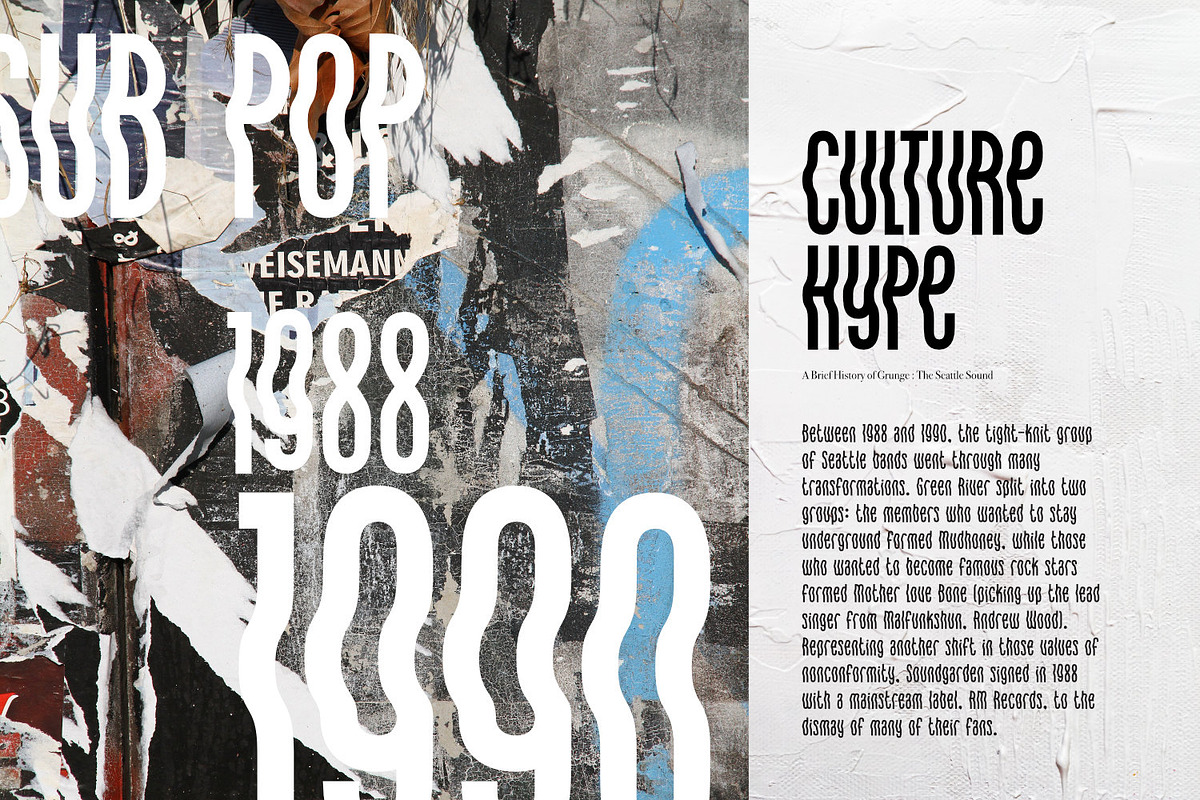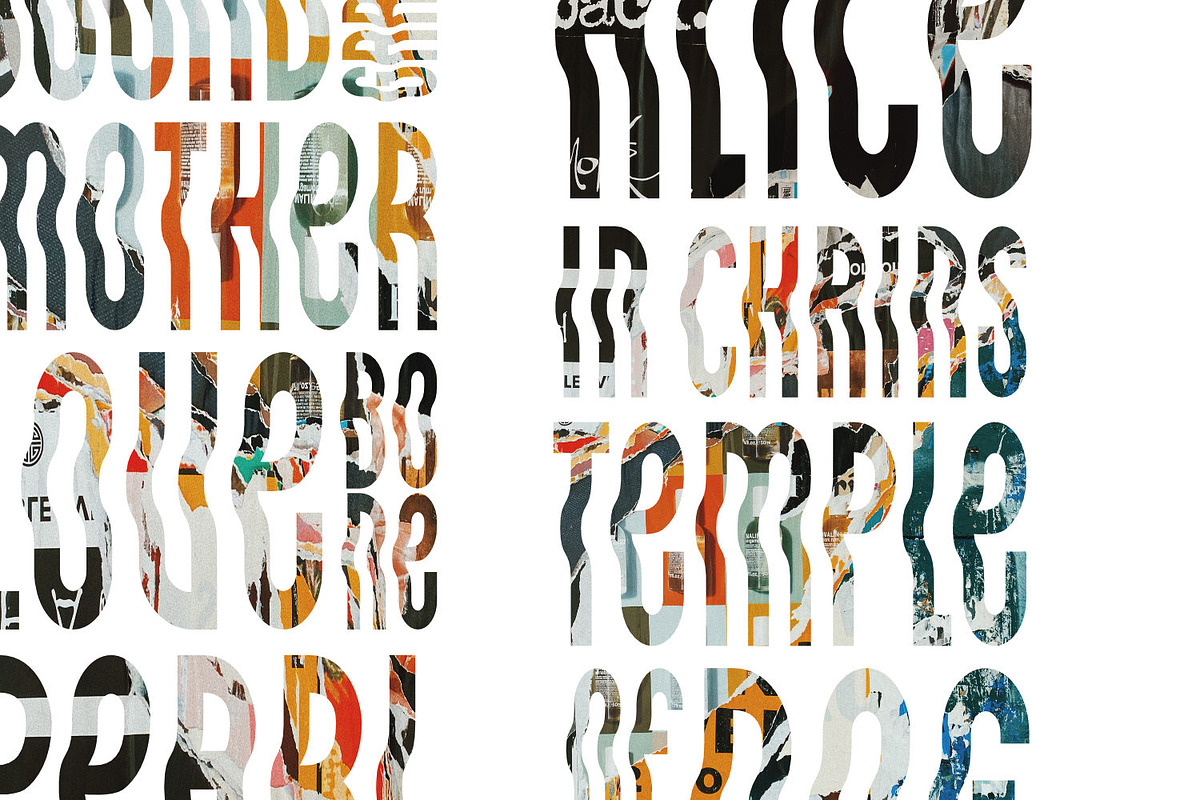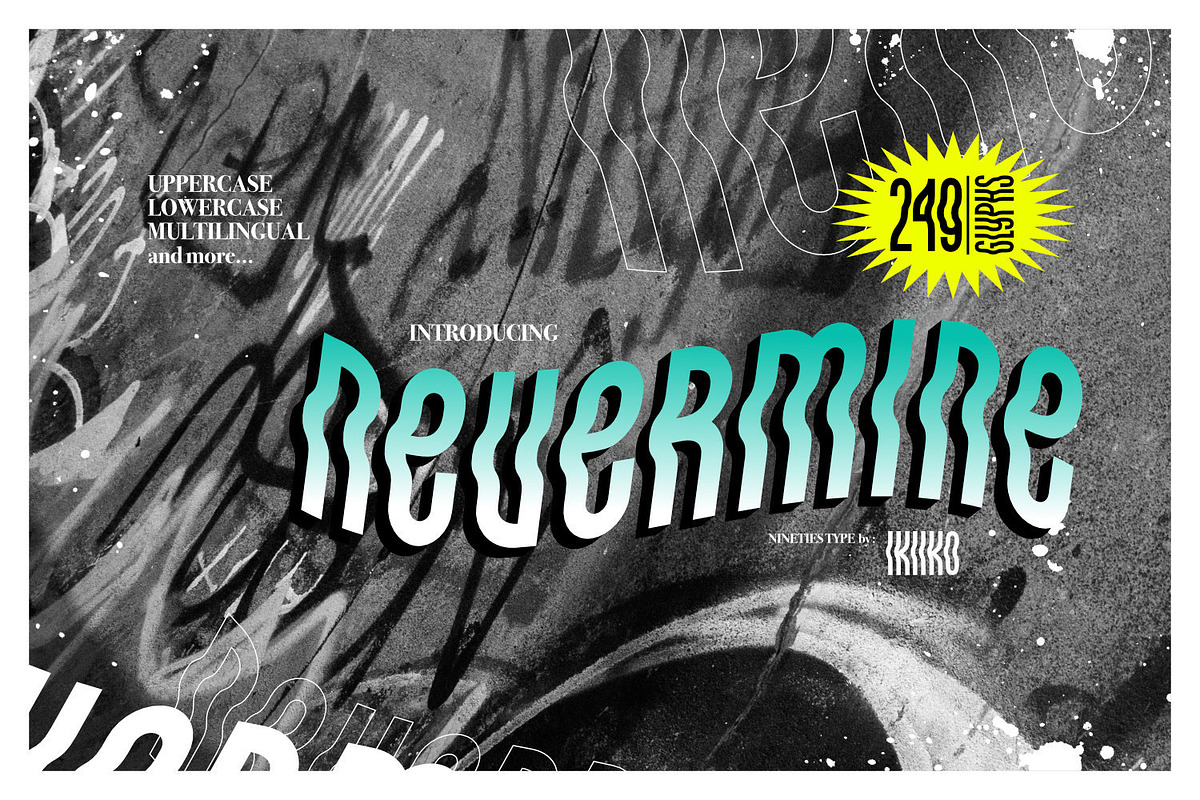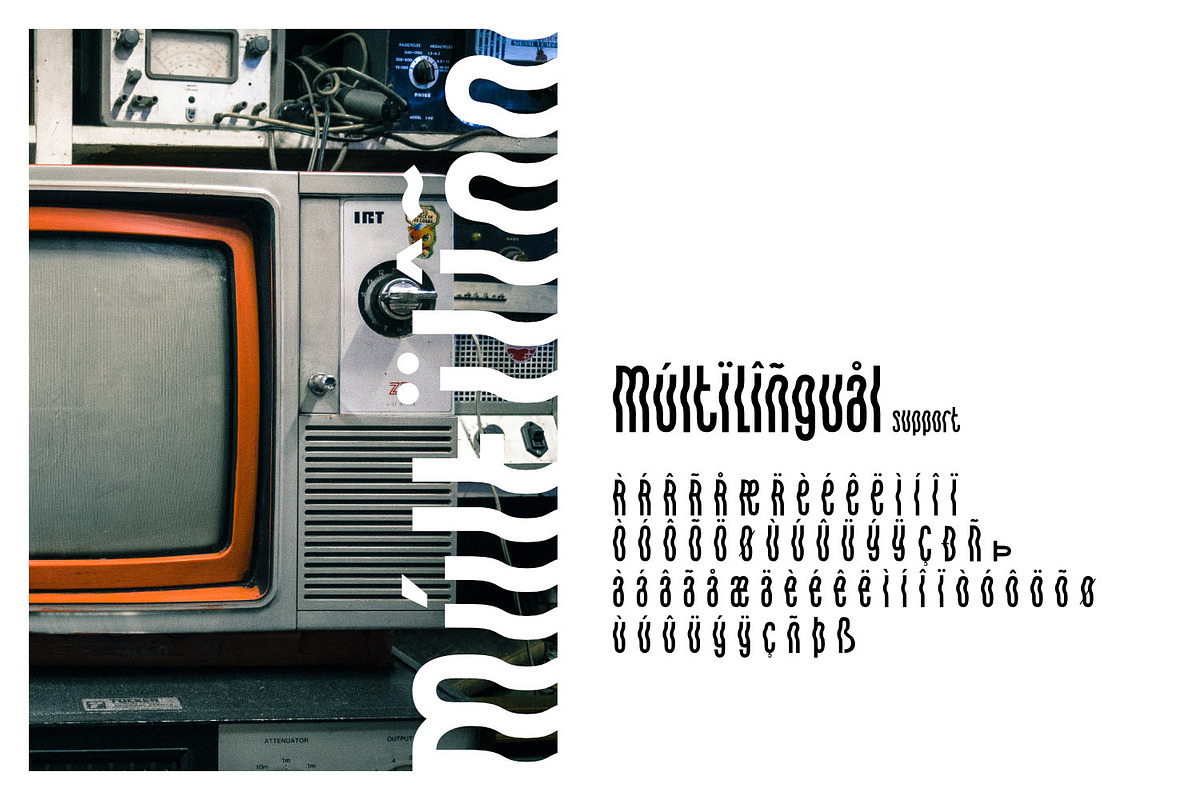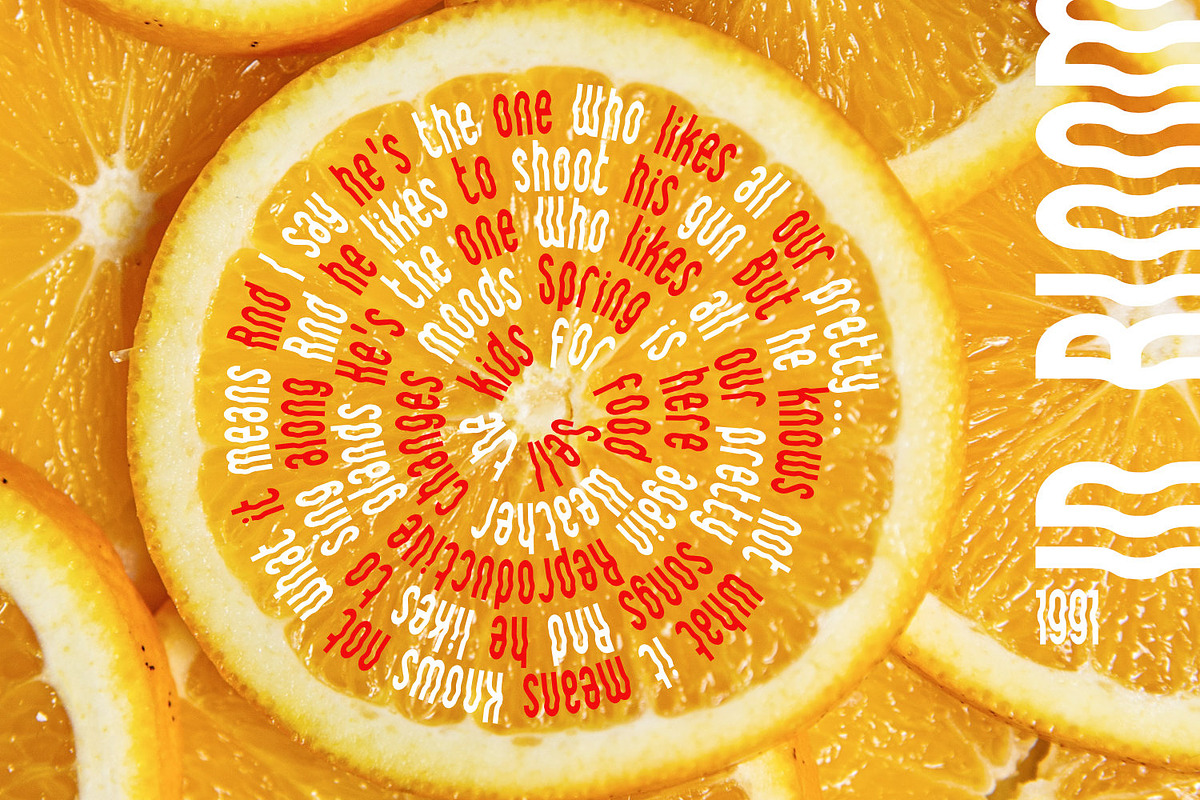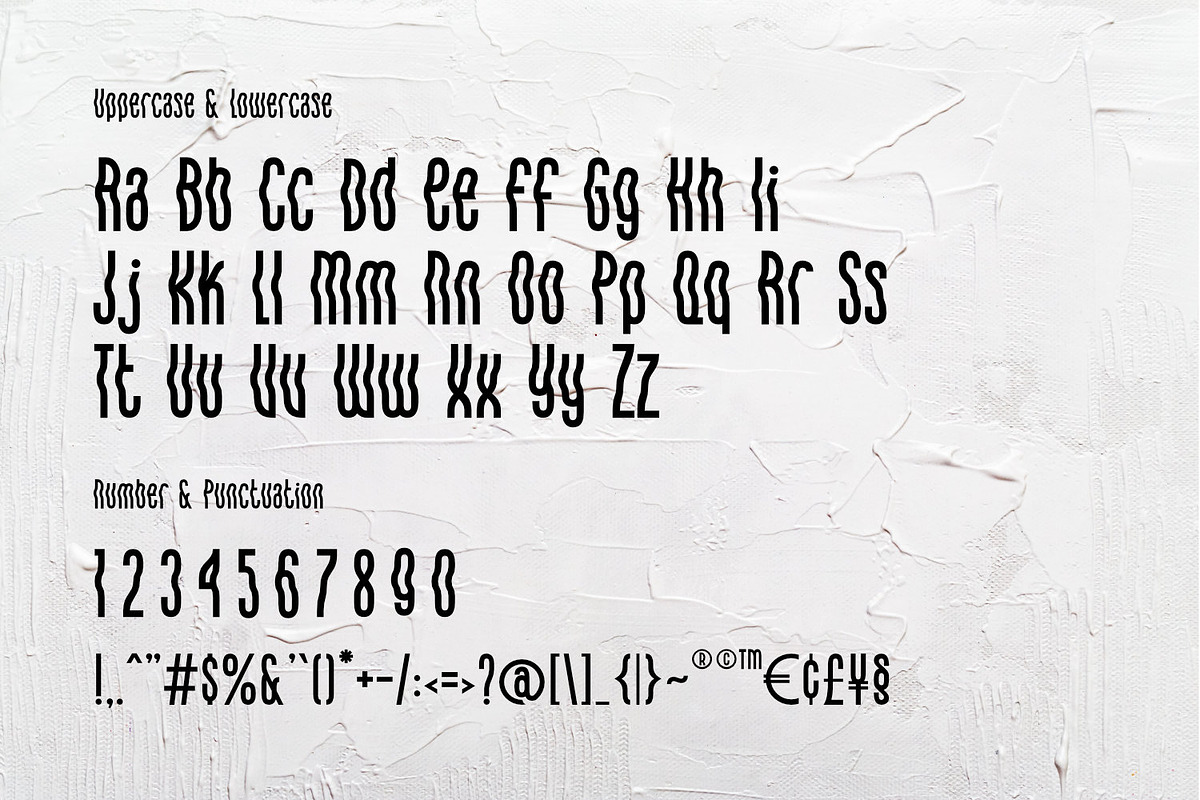
Nevermine - Nineties Type
Introducing Nevermine - Nineties Type, created by ikiiko.
Is a solid & raw condensed typeface with unique shape of 90's era. This typeface is perfect for an event poster, magazine cover, hipster fashion brand, t-shirt, tote bag, quotes, or stylish text overlay to any background image.
- Number & Punctuation